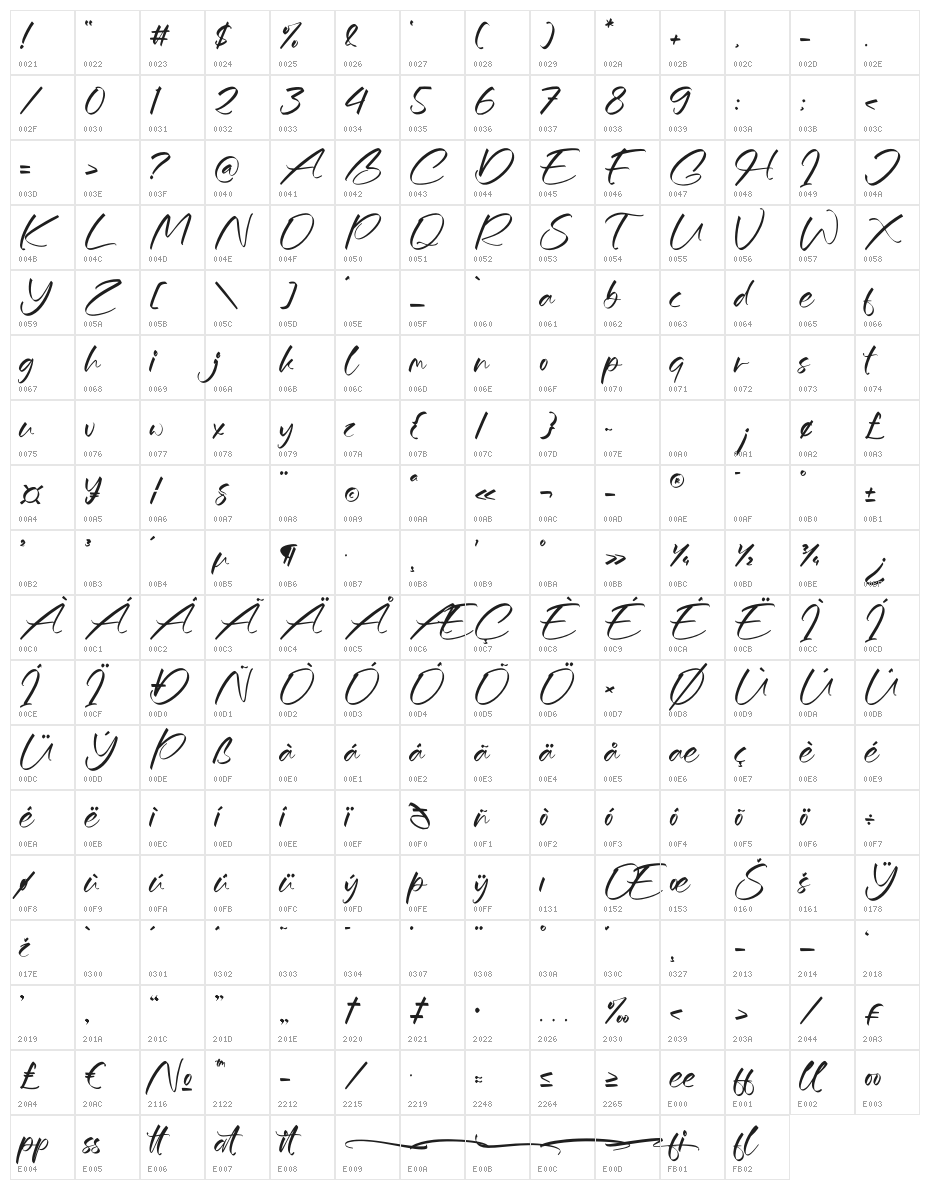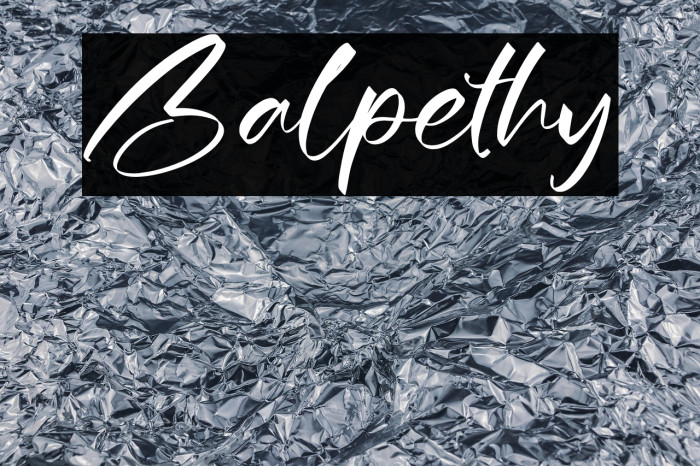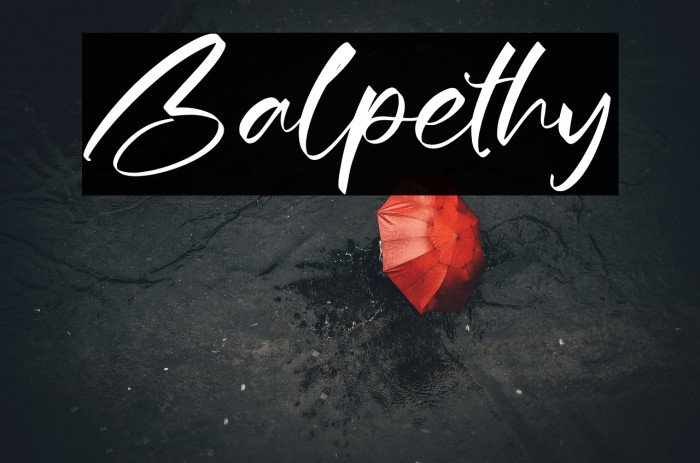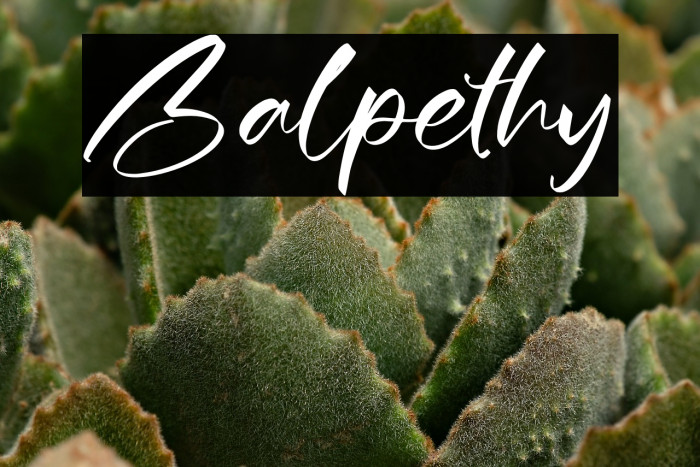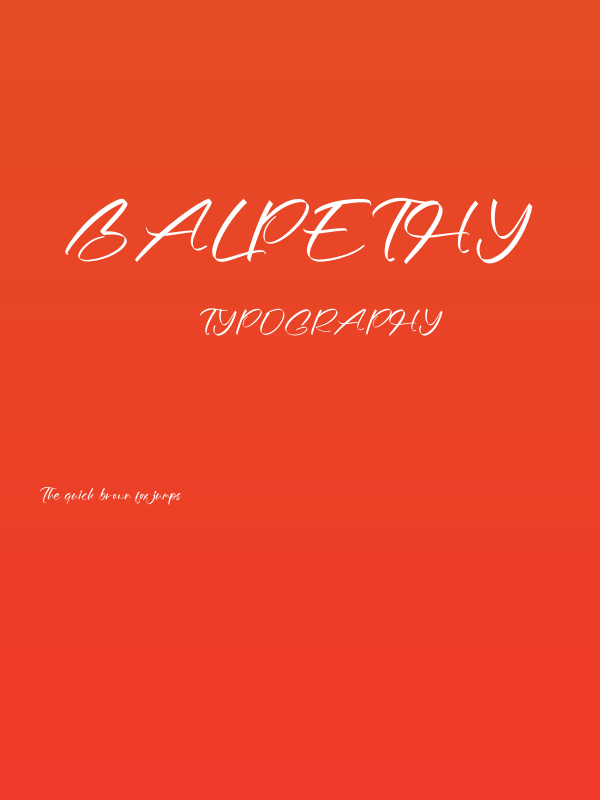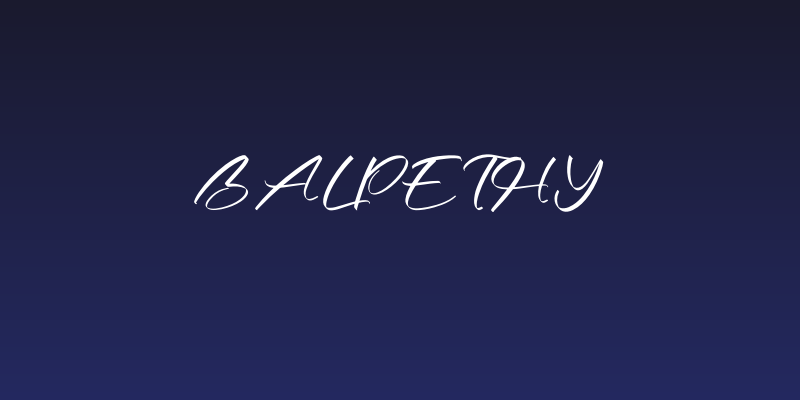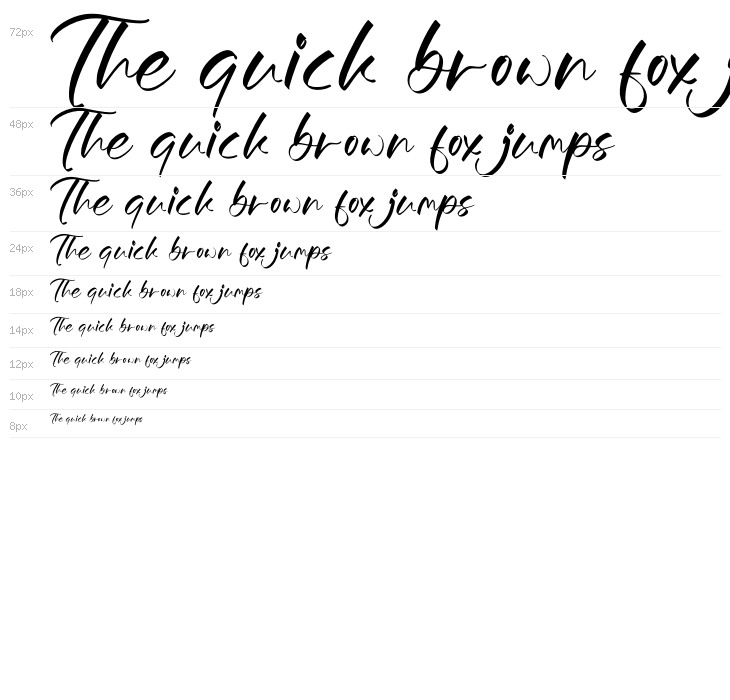
Balpethy Font
Balpethy Description
A lively, handwritten script font with fluid, connected strokes and varying thickness, giving it an expressive and personal feel. The characters are slightly slanted, with a natural flow and moderate contrast between thick and thin lines.
| Overall Style | Decorative, Casual, Modern |
| Use Case | Logos, Headlines, Invitations, Social media graphics |
| Proposed Projects | Greeting cards, invitations, branding, quotes, social media graphics, personal notes. |